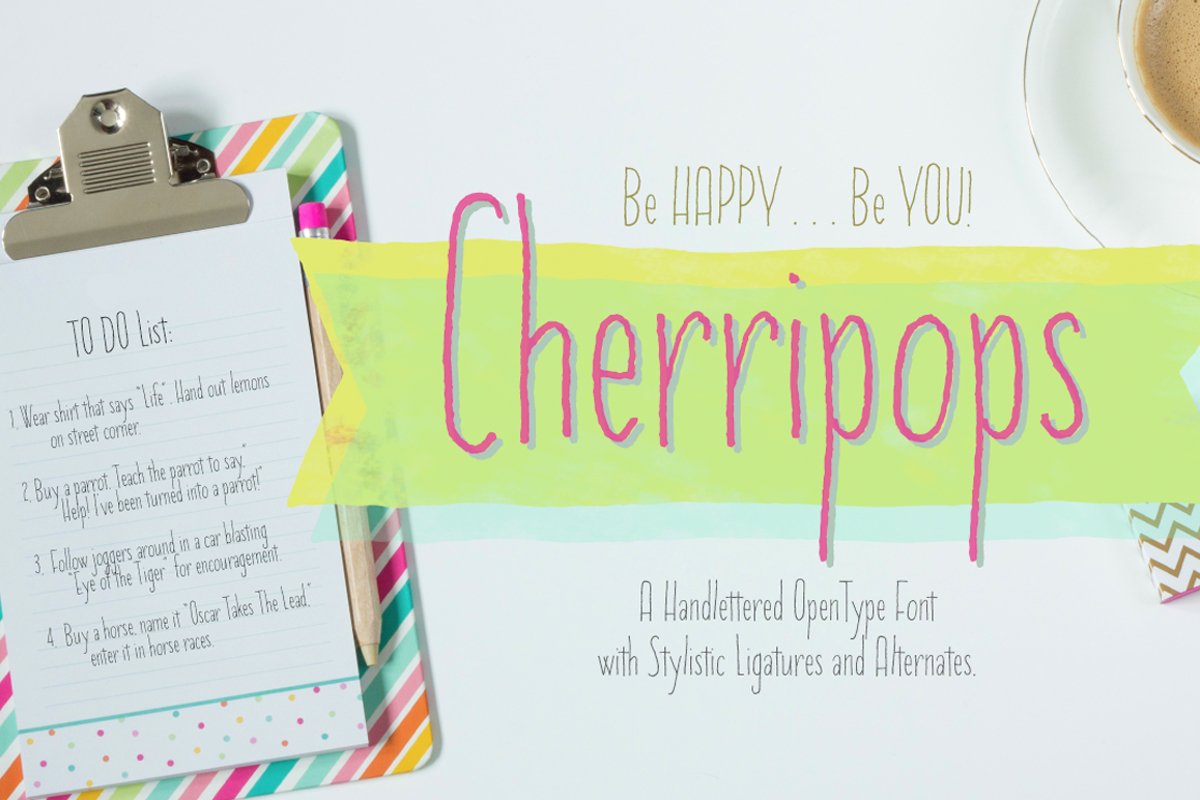
Created By Tart Workshop
Cherripops
Be Happy, Be you! Express yourself with Cherripops!  Charming handlettered Cherripops is easy to use. Let that creative kid within shine!
Perfect for quotes, t-shirts, book covers, posters, packaging projects, food, apparel, magazines and with such a wide variety of styles, Cherripops makes the perfect font system for film, television, marketing, advertising and websites.